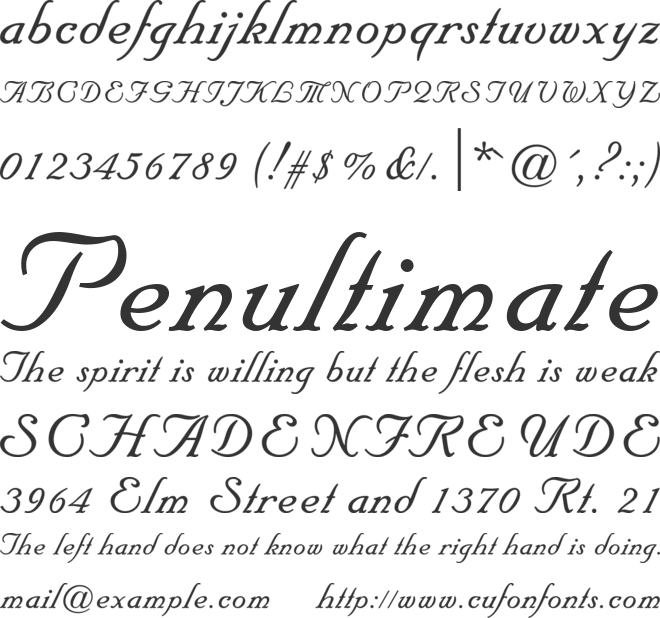
Floridian Script Std Font
Monotype Design Studio
Floridian Script is a contemporary script font, released in 1972, with a clean appearance. Floridian Script’s uppercase M and Q are unusual while the lowercase script is more simple than standard scripts based on copperplate handwriting.